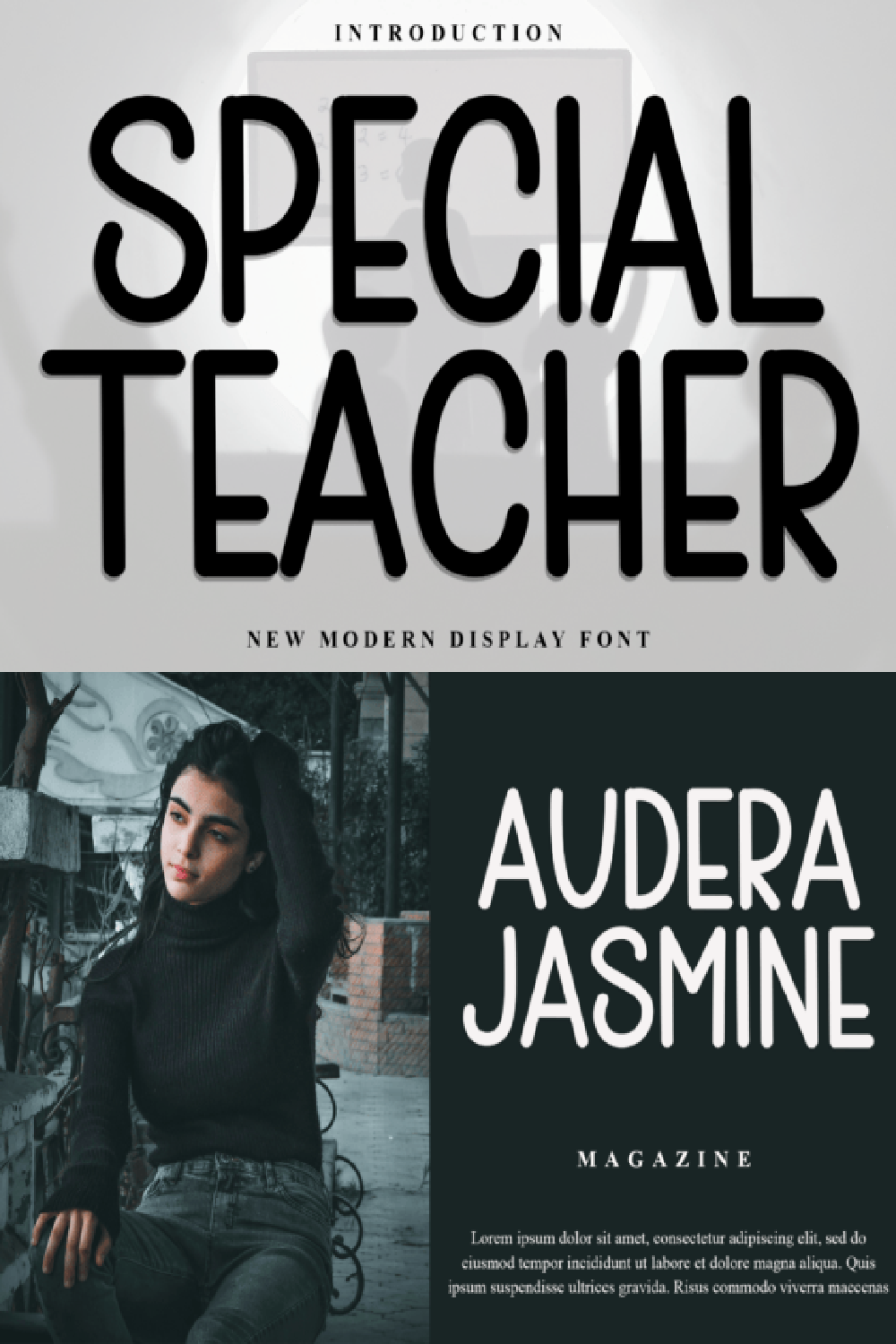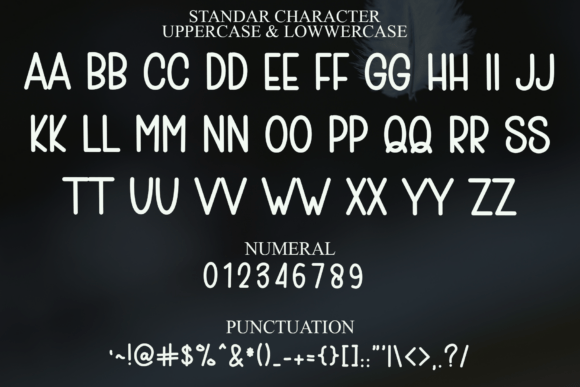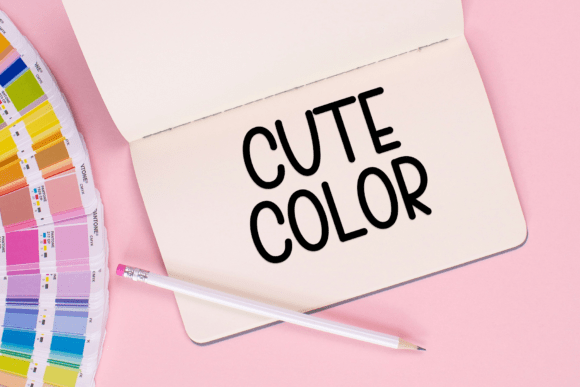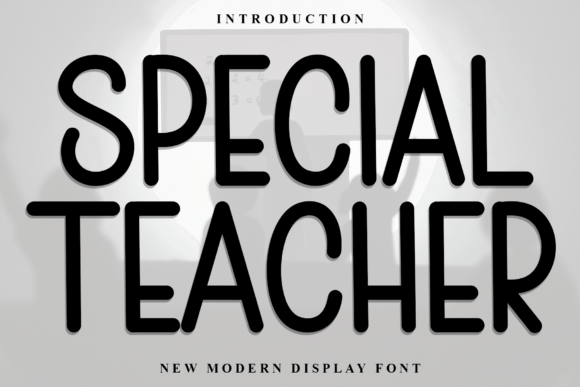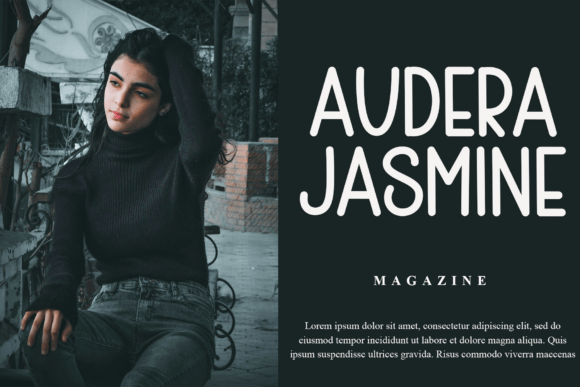
Special Teacher Font
About the Special Teacher Font
Meet Special Teacher Font, a stunning font that brings a touch of elegance and professionalism to any design. Special Teacher is a festive and merry typeface that captures the spirit of the holiday season. With its decorative elements and whimsical flair, it adds a touch of enchantment to your designs. Perfect for greeting cards, gift tags, and holiday-themed projects, this font brings a cheerful and nostalgic ambiance to your words. Let your typography shine with the magic of Beautiful Font!
Special Teacher Font Usage Examples